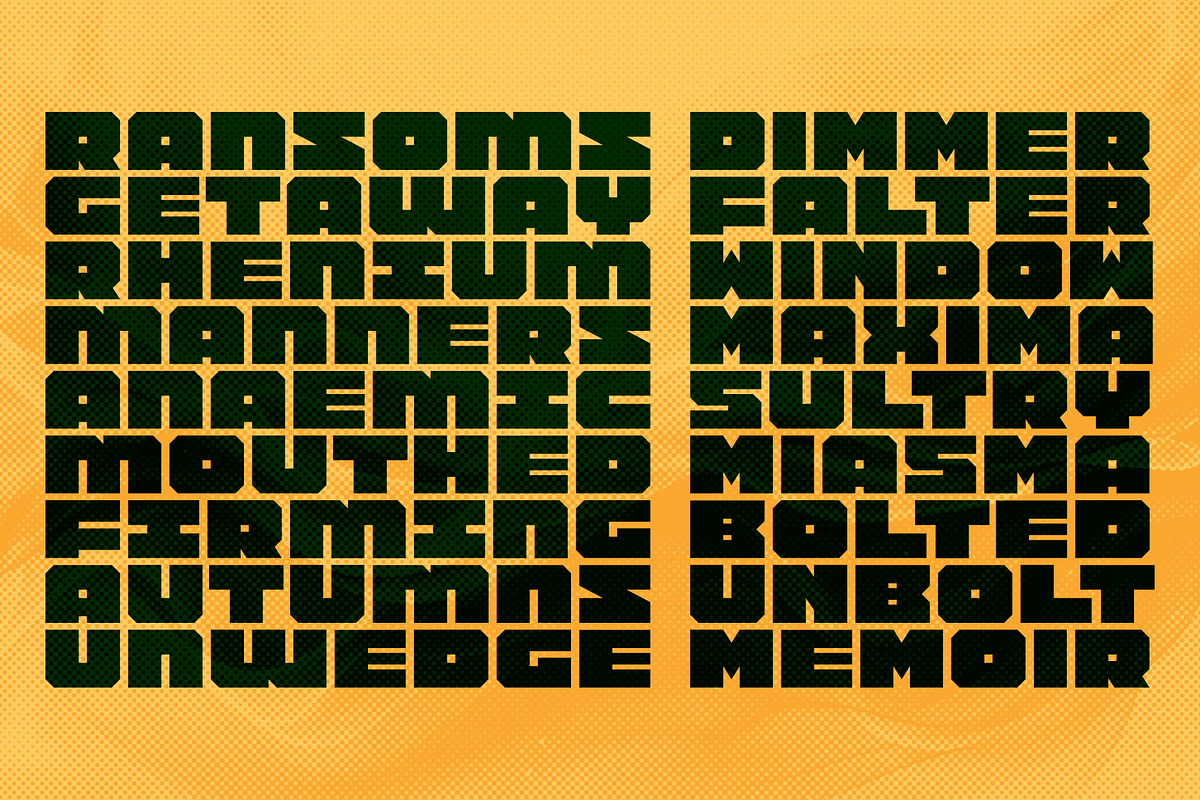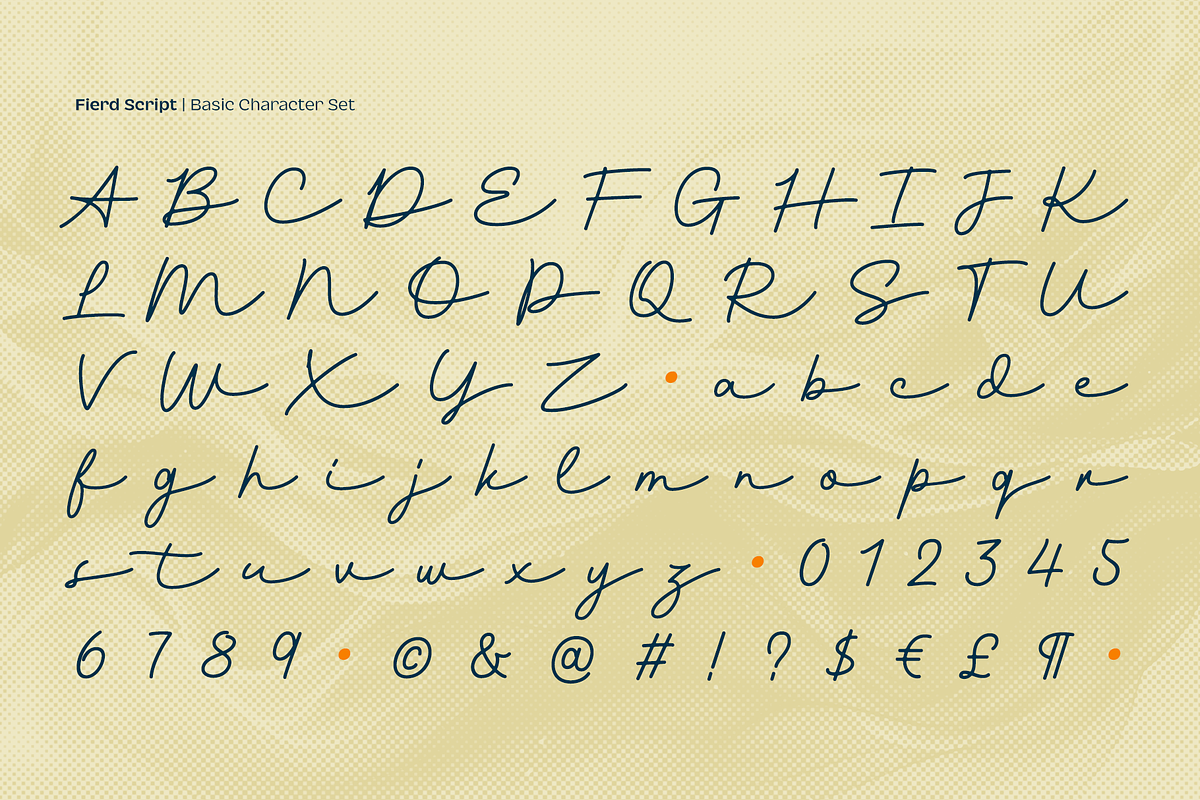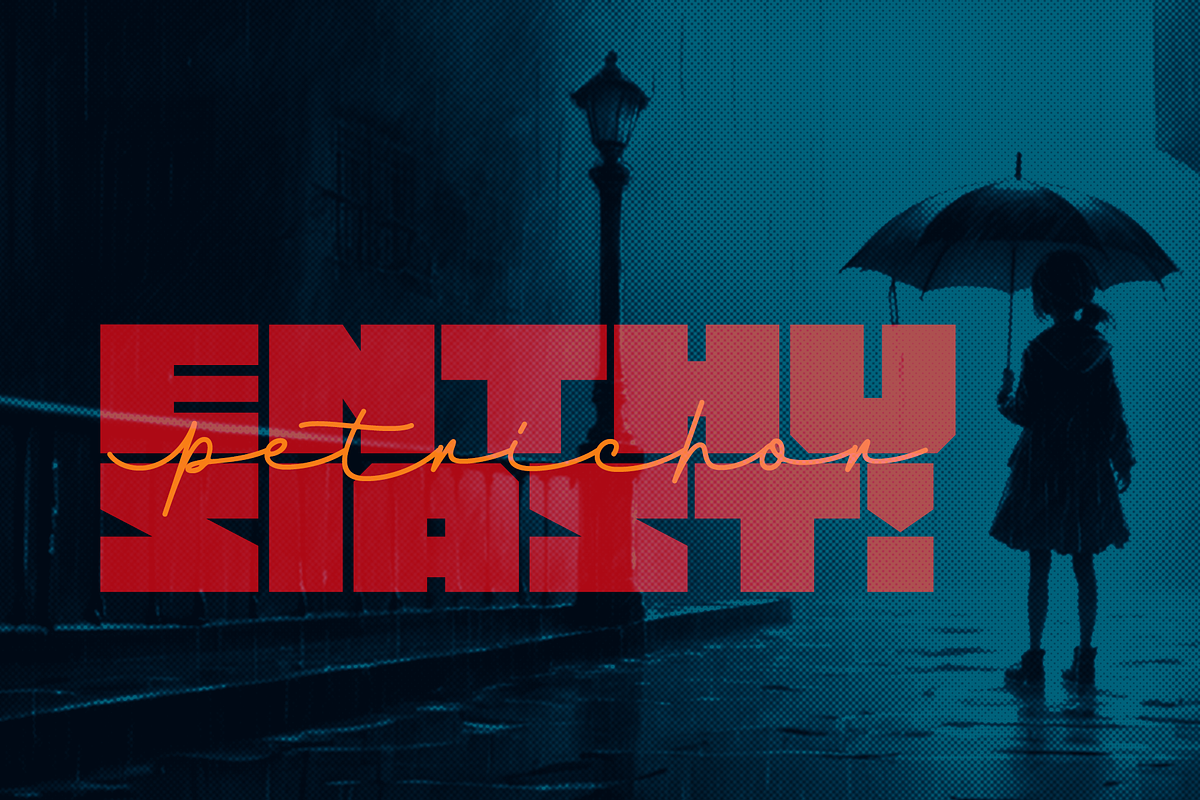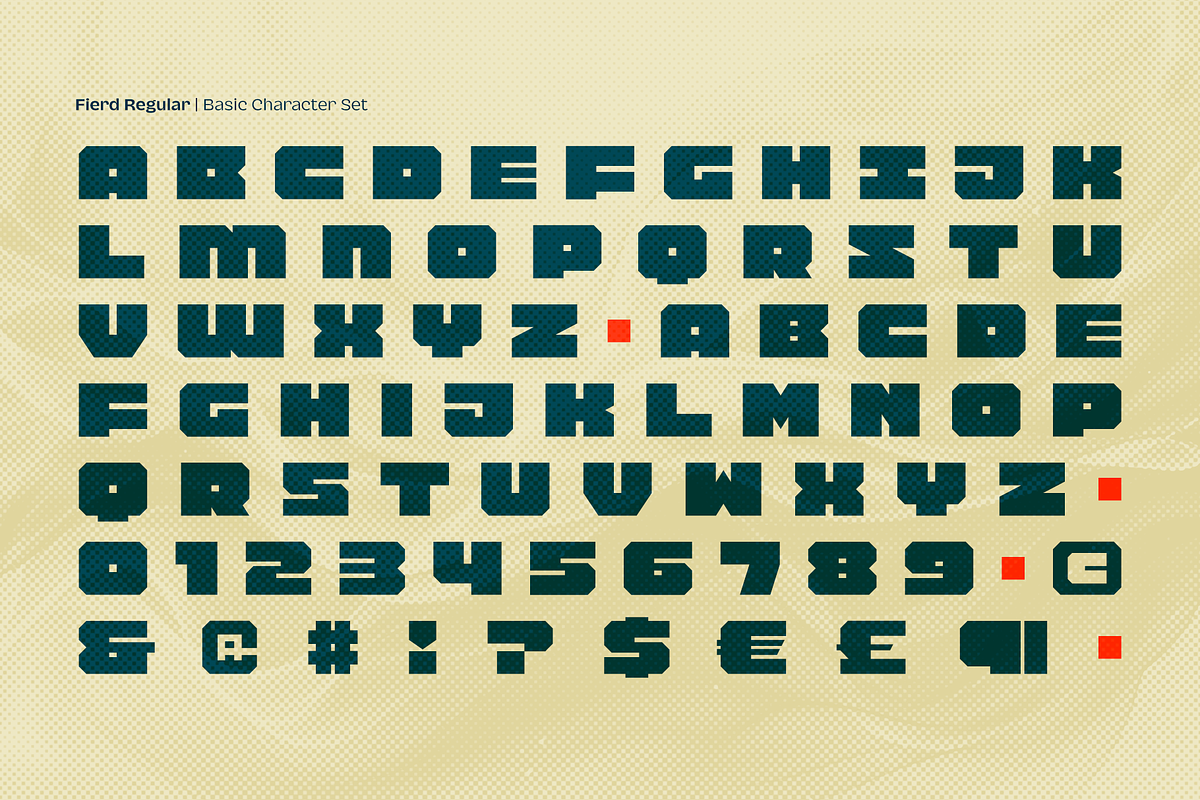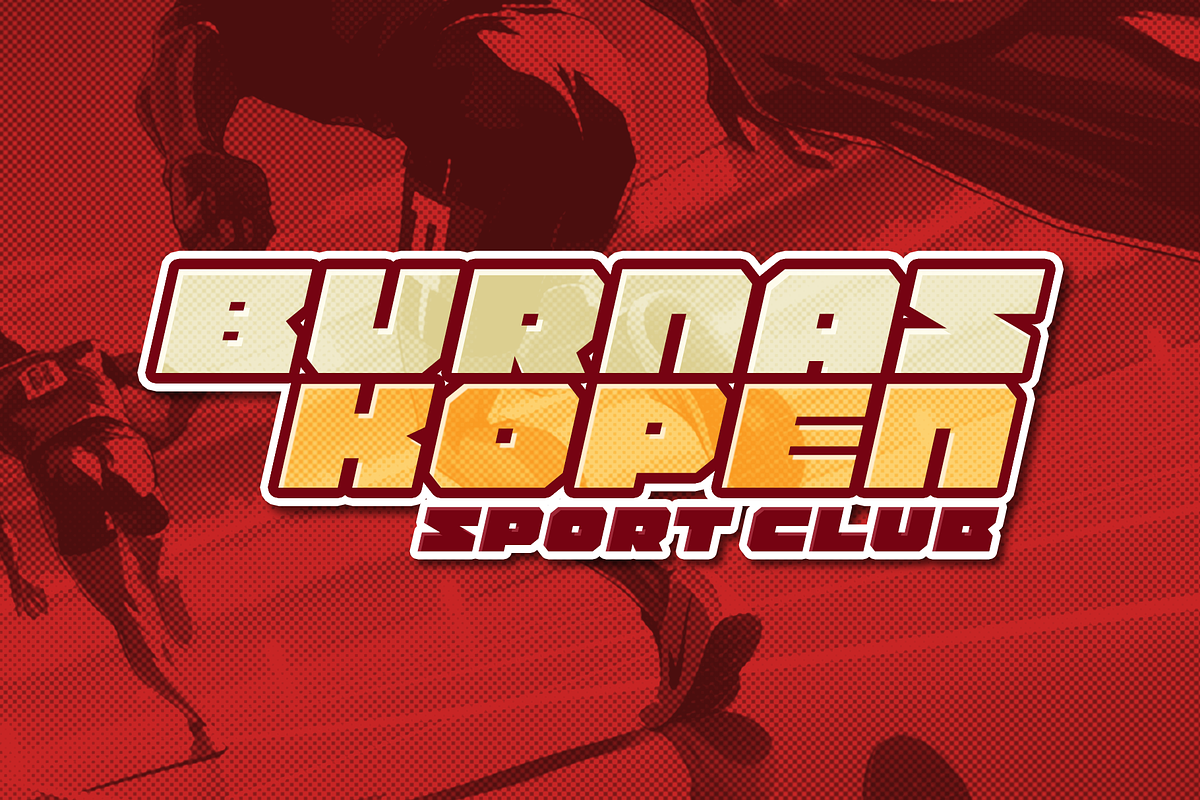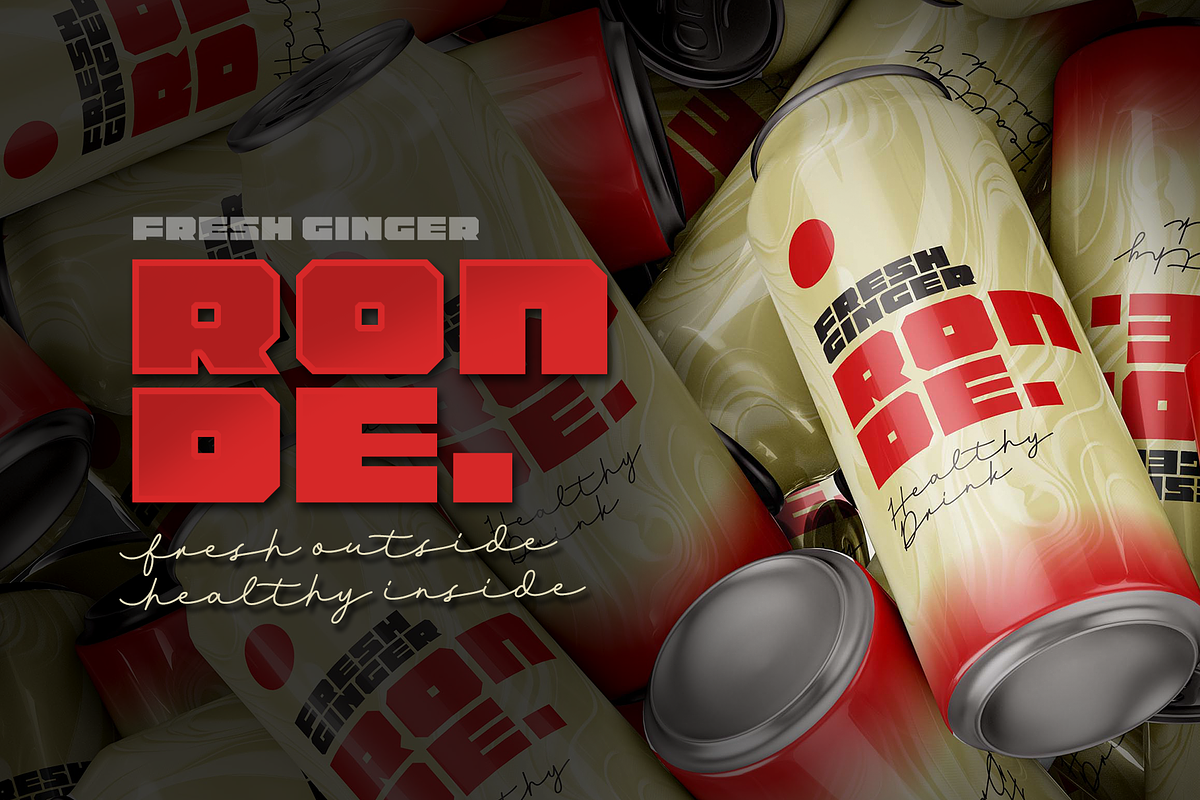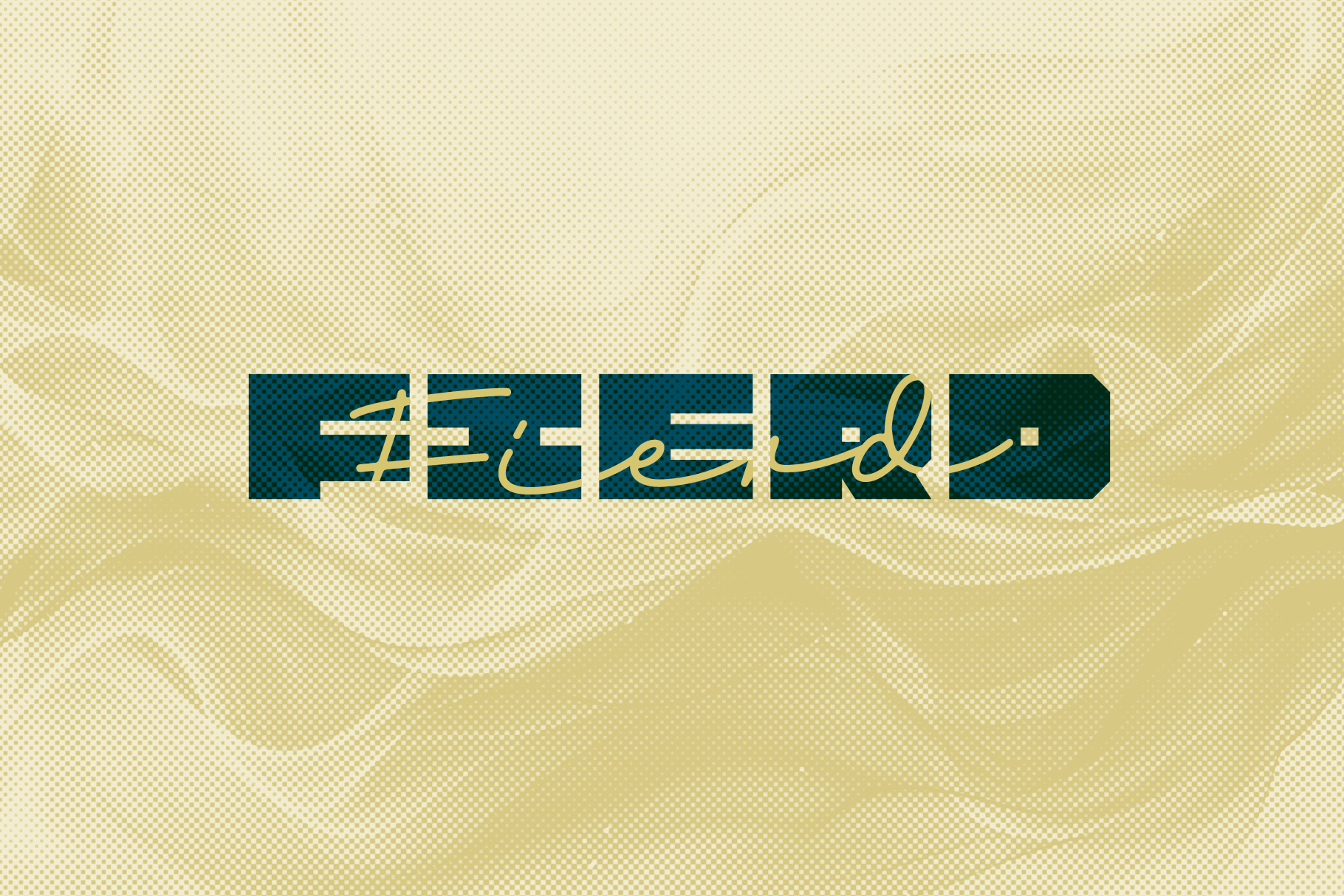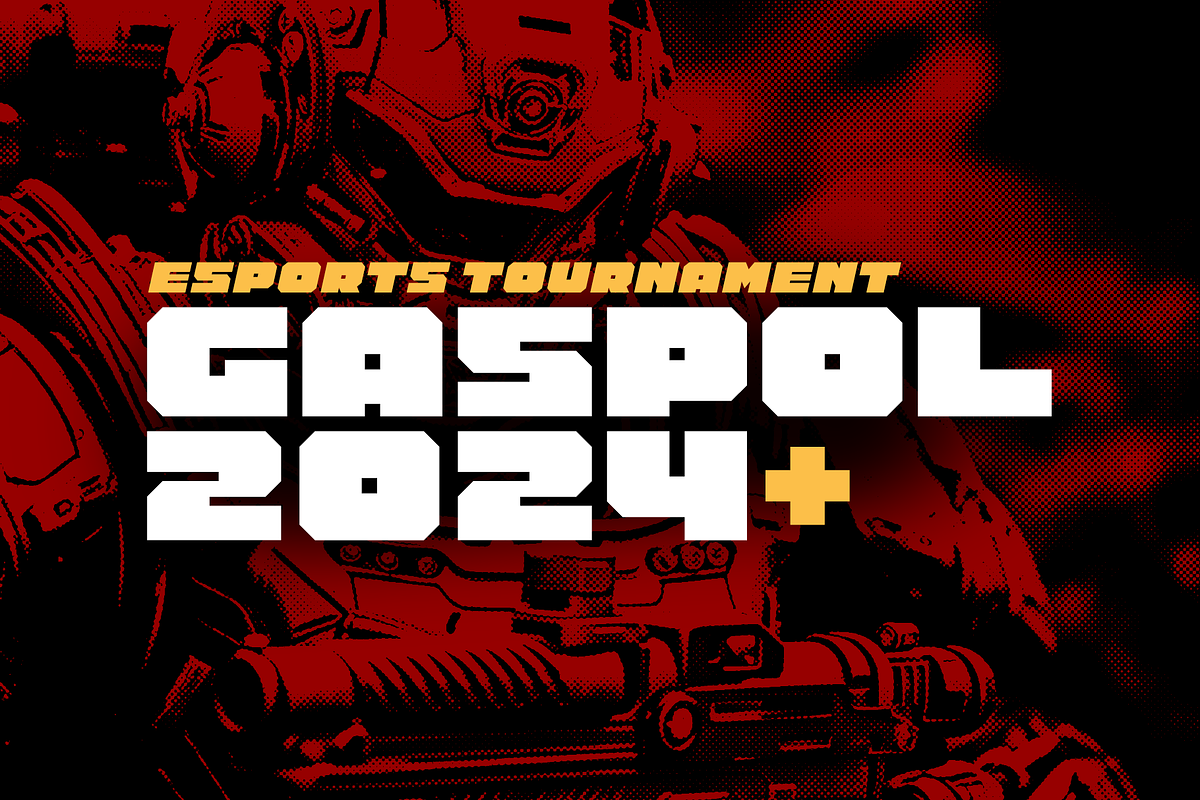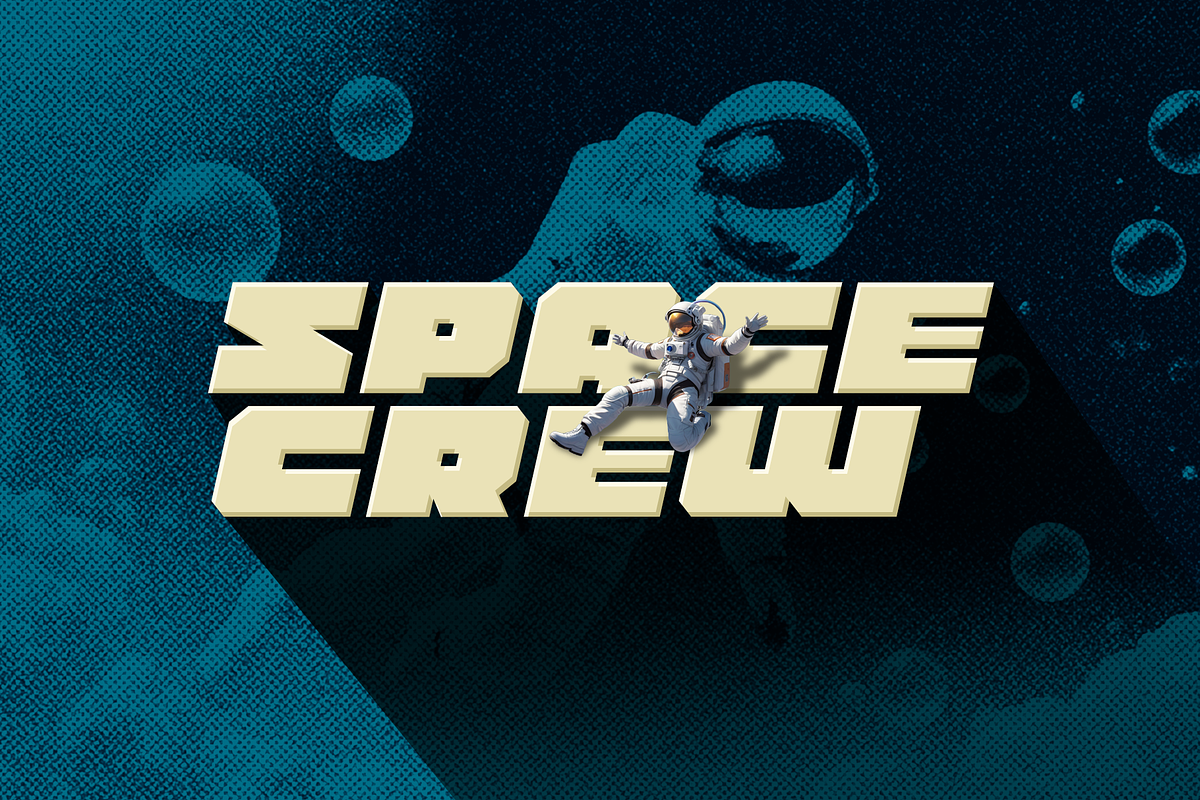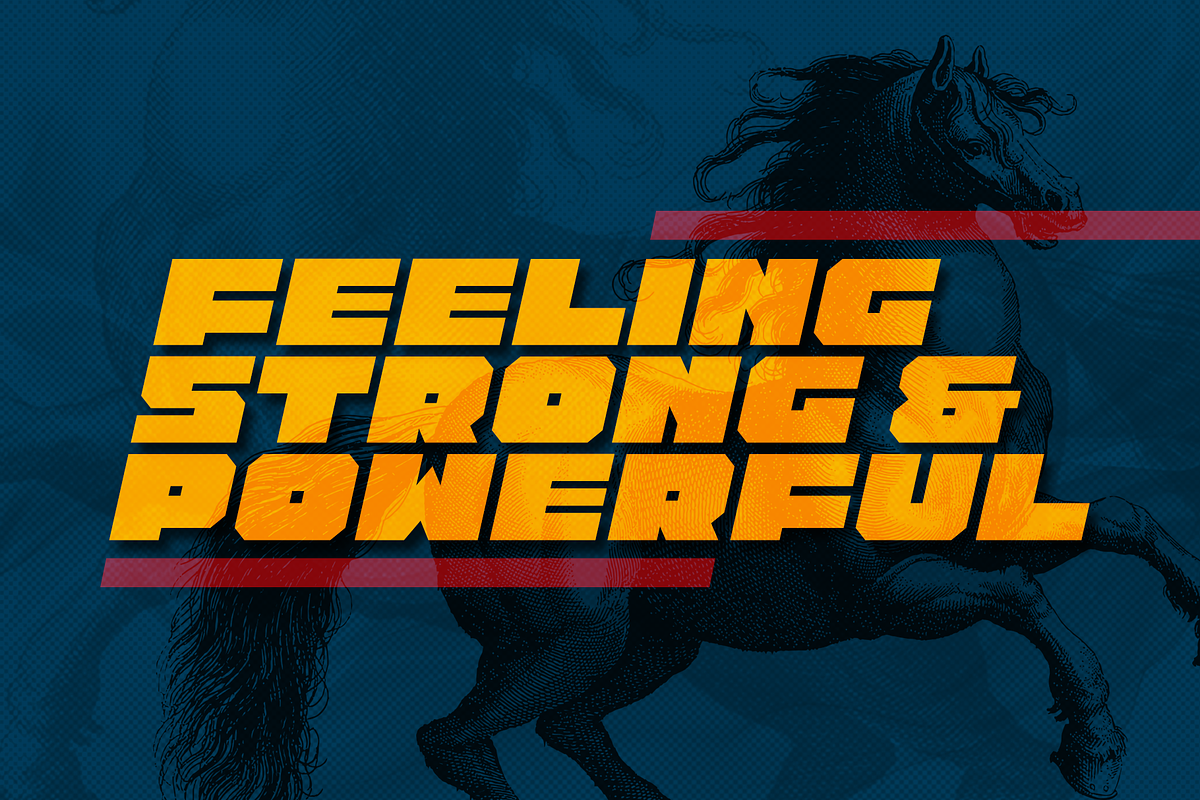
Fierd Font Duo
Fierd is a playful font duo that combines two distinct styles: a bold, square-shaped font with sharp corners and a smooth, signature-style monoline font. These two contrasting fonts come together perfectly, giving you the tools to create standout, one-of-a-kind typography. Whether you're designing logos, posters, or anything in between, Fierd adds a unique flair to your creations!